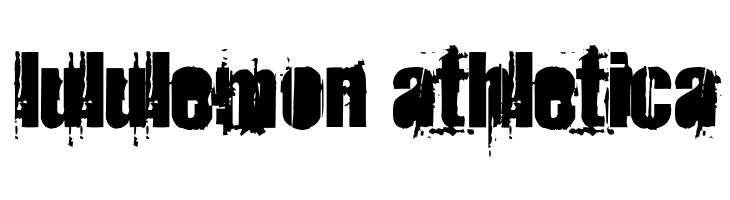
JimmysBold Font
- Font: JimmysBold
- Greutate: Bold
( Fonts by Kirk Shelton - www.kirkshelton.com )
A bold, distressed font with irregular, fragmented letterforms.